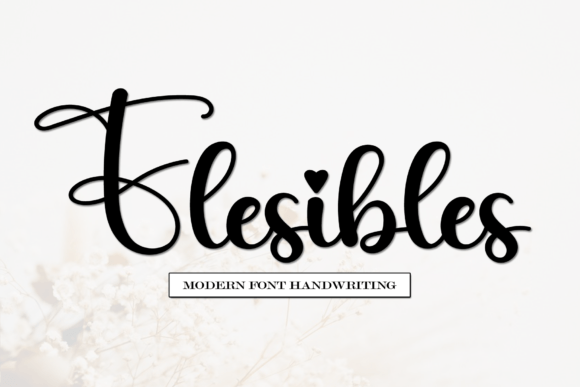
Step into the enchanting world of Flesibles, a script font born from the fusion of timeless elegance and modern artistry. Its delicate strokes, meticulously crafted by the masterminds at RR Studio, evoke the allure of handwritten letters, transporting you to an era where every word carried a unique charm.
With Flesibles, your words will transcend the ordinary, becoming exquisite works of art. Its graceful curves and elegant lines add a touch of sophistication to any design, whether it's a heartfelt wedding invitation, a heartfelt thank-you card, or a captivating logo. The possibilities are endless, as Flesibles effortlessly complements any creative vision.
Imagine your designs blossoming into breathtaking masterpieces, adorned with Flesibles' enchanting presence. Its versatility allows it to seamlessly adapt to a myriad of projects, from heartfelt quotes that resonate with emotion to captivating greeting cards that bring smiles to faces.
Flesibles is not just a font; it's an experience. Its intricate details and subtle nuances capture the essence of human touch, adding a layer of authenticity and warmth to your designs. With Flesibles, your creations will captivate audiences, leaving a lasting impression that lingers in their hearts.
Don't settle for ordinary fonts. Embrace the extraordinary with Flesibles. Its timeless beauty and captivating allure will elevate your designs to new heights, transforming them into captivating works of art. Unleash your creativity and let Flesibles become your muse, guiding you toward design excellence.